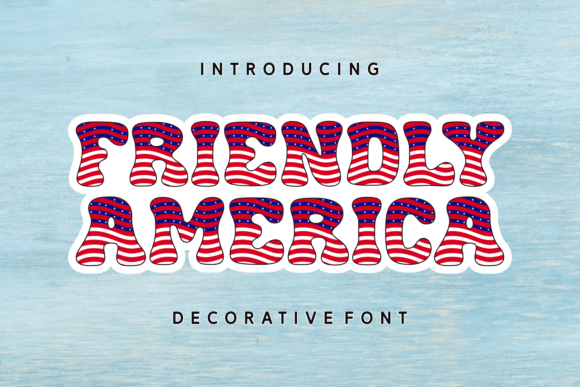
Friendly America Font: Adding a Touch of Patriotic Flair to Your Designs
When it comes to creating designs that evoke a sense of American spirit, the right font can make all the difference. That’s where the Friendly America Font and Independence Star Font come in – two popular fonts that are perfect for adding a touch of patriotic flair to any design. In this article, we’ll take a closer look at these fonts, their features, and how you can use them to create stunning designs that celebrate the essence of America.
What is Friendly America Font?
Friendly America Font is a typeface that embodies the classic American feel, with a friendly and approachable twist. This font is designed to evoke a sense of nostalgia and patriotism, making it perfect for designs that require a touch of American charm. Whether you’re creating a poster, label, or social media graphic, Friendly America Font is an excellent choice for adding a dash of personality to your design.
Introducing Independence Star Font
Independence Star Font is a fun and playful take on the classic American font. With its comic twist and decorative touches, this font adds a unique flair to any design. The Independence Star Font is perfect for designs that require a bold and eye-catching element, such as a trendy birthday celebration poster or a unique label design. This font is sure to grab attention and evoke a sense of patriotic spirit.
Key Features of Independence Star Font
- Patriotic Spirit: Independence Star Font is designed to evoke a sense of American pride and patriotism, making it perfect for designs that celebrate American holidays or events.
- Decorative Touches: This font features decorative touches that add a touch of elegance and sophistication to any design.
- Comedic Twist: The Independence Star Font has a playful and comedic twist, making it perfect for designs that require a lighthearted and humorous tone.
- Trendy and Modern: This font is perfect for trendy and modern designs, such as social media graphics, posters, and labels.
Using Friendly America Font and Independence Star Font in Your Designs
Both Friendly America Font and Independence Star Font are versatile and can be used in a variety of designs, including:
- Posters: Create eye-catching posters for American holidays, such as Independence Day or Memorial Day.
- Labels: Design unique labels for products that celebrate American culture, such as BBQ sauce or craft beer.
- Social Media Graphics: Add a touch of patriotic flair to your social media graphics, such as Facebook posts or Instagram stories.
- Logos: Create logos for businesses that want to evoke a sense of American spirit, such as a diner or a convenience store.
Tips for Using Friendly America Font and Independence Star Font
- Pair with Other Fonts: Pair these fonts with other fonts that complement their style, such as a sans-serif font for a clean and modern look.
- Use in Combination with Images: Use these fonts in combination with images that evoke a sense of American spirit, such as the American flag or a patriotic illustration.
- Experiment with Colors: Experiment with different colors that complement the font, such as red, white, and blue or patriotic pastels.
In conclusion, Friendly America Font and Independence Star Font are two popular fonts that are perfect for adding a touch of patriotic flair to any design. With their classic American feel and decorative touches, these fonts are ideal for designs that celebrate American culture and spirit. Whether you’re creating a poster, label, or social media graphic, these fonts are sure to evoke a sense of patriotism and add a unique twist to your design.